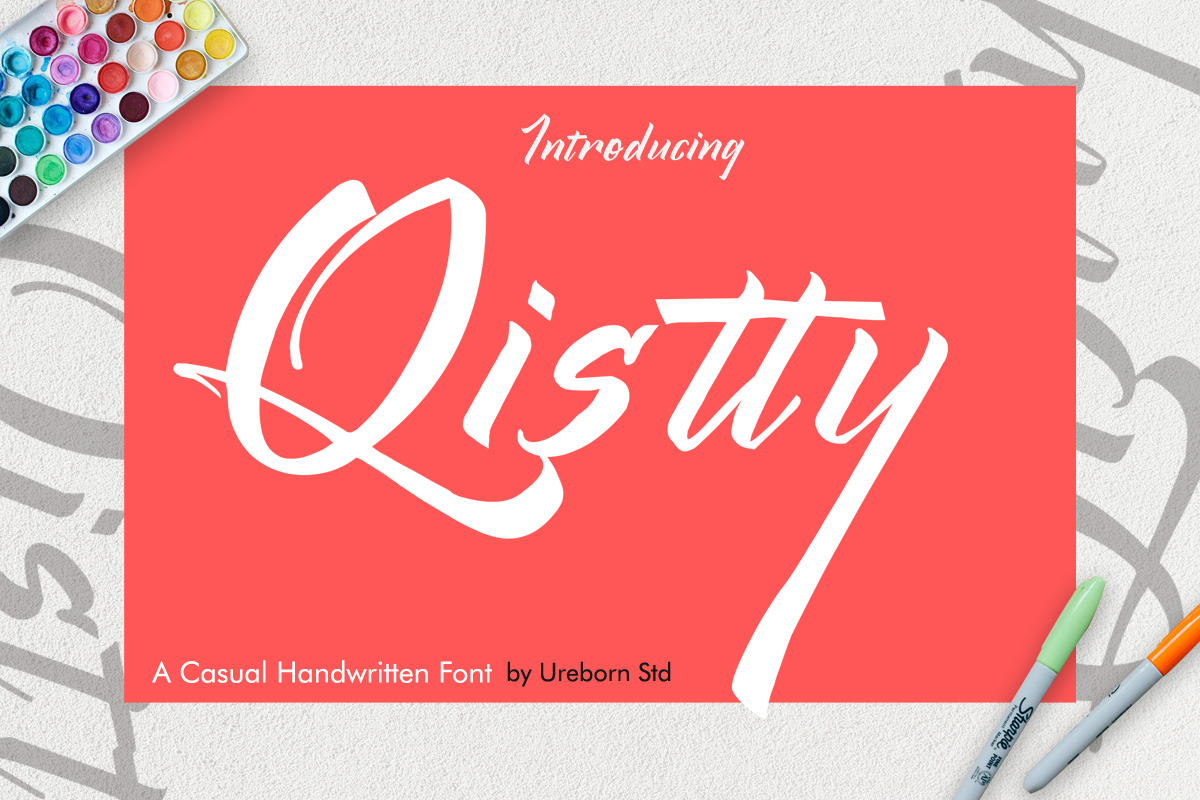
Qistty - Casual Display Font
Qistty is a gorgeous and bold handwritten font, crafted to give your headlines and logotype projects a stylish touch. This font reads as strong, confident, and dynamic and can add tons of nostalgic character to your designs.